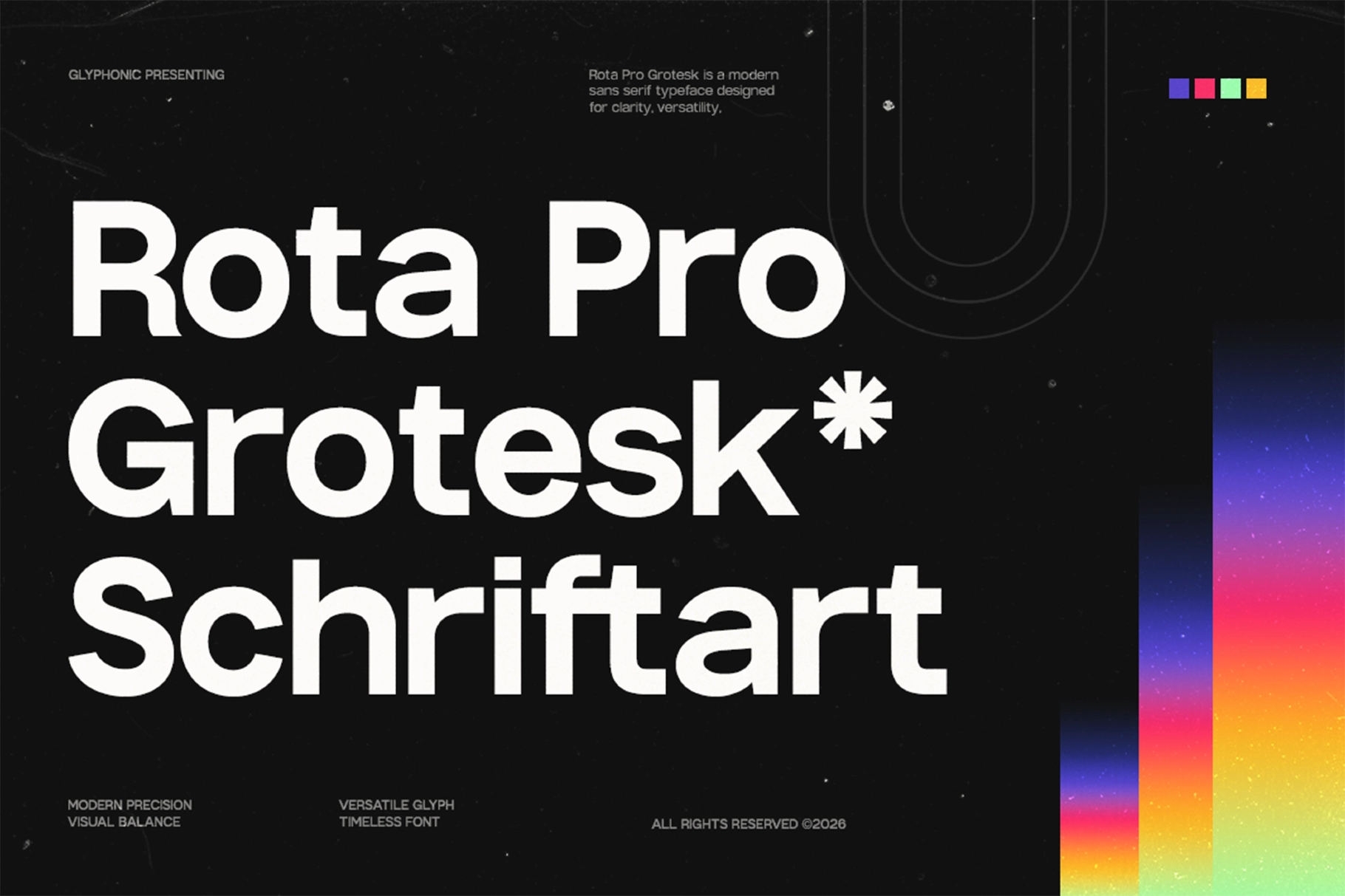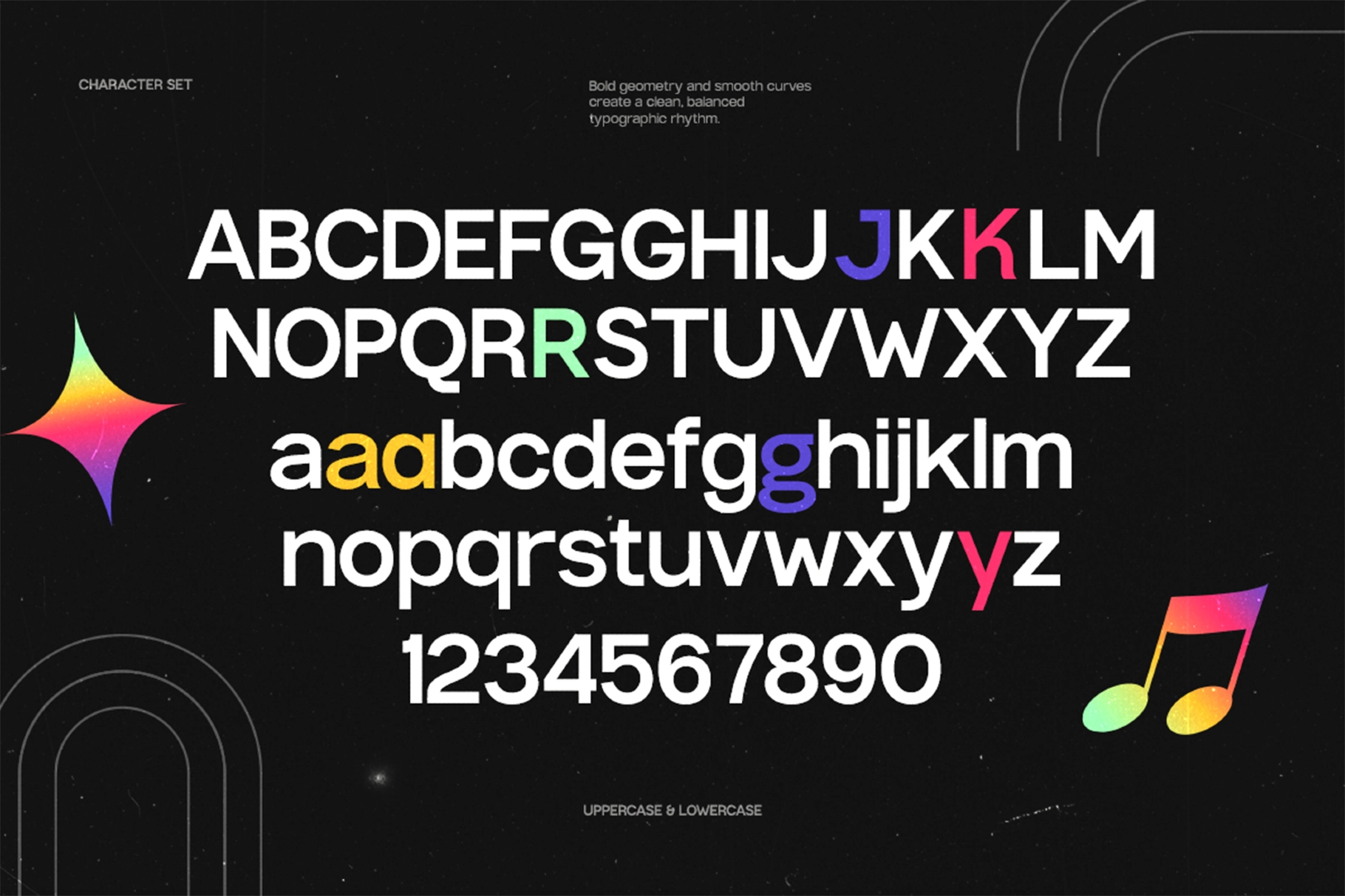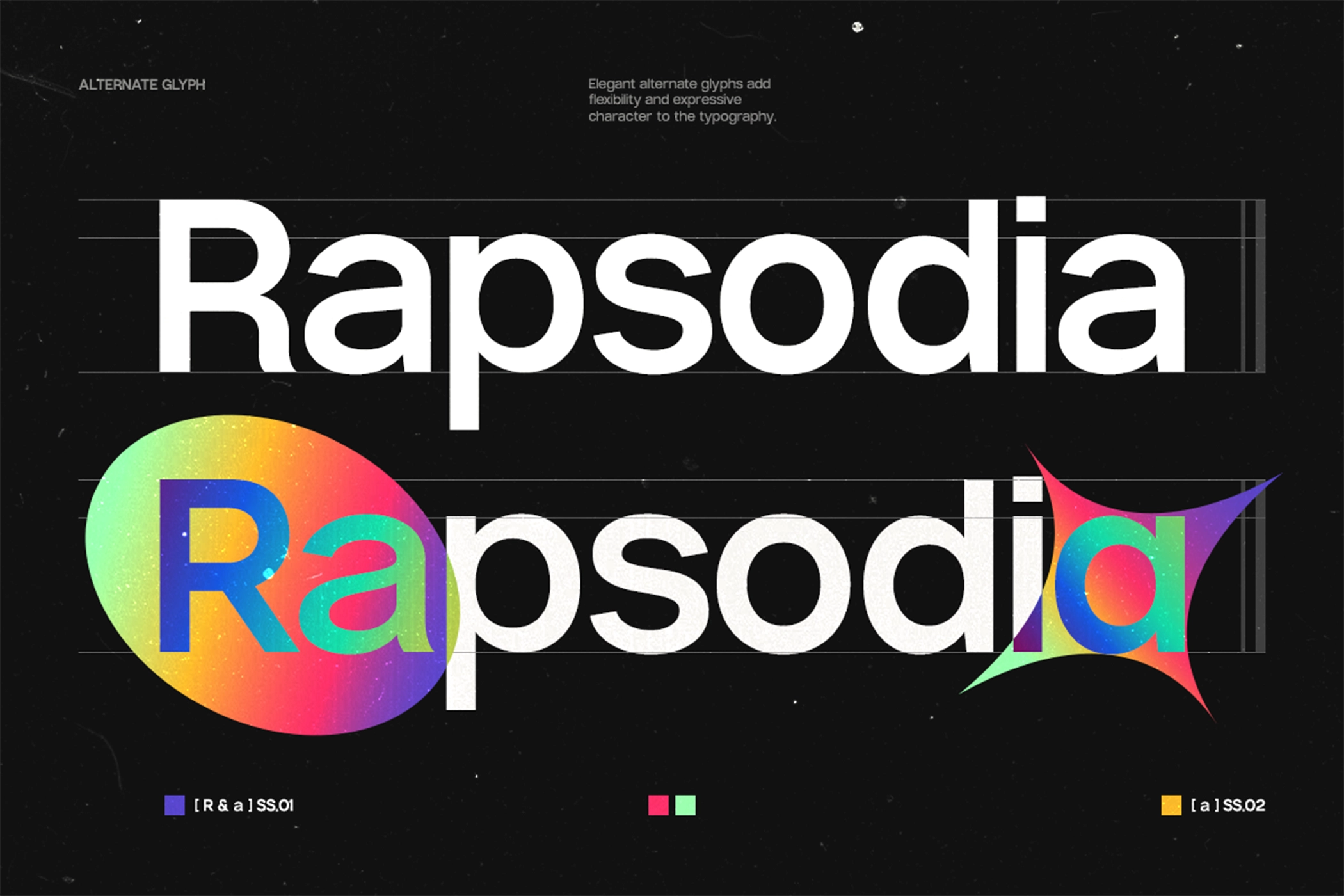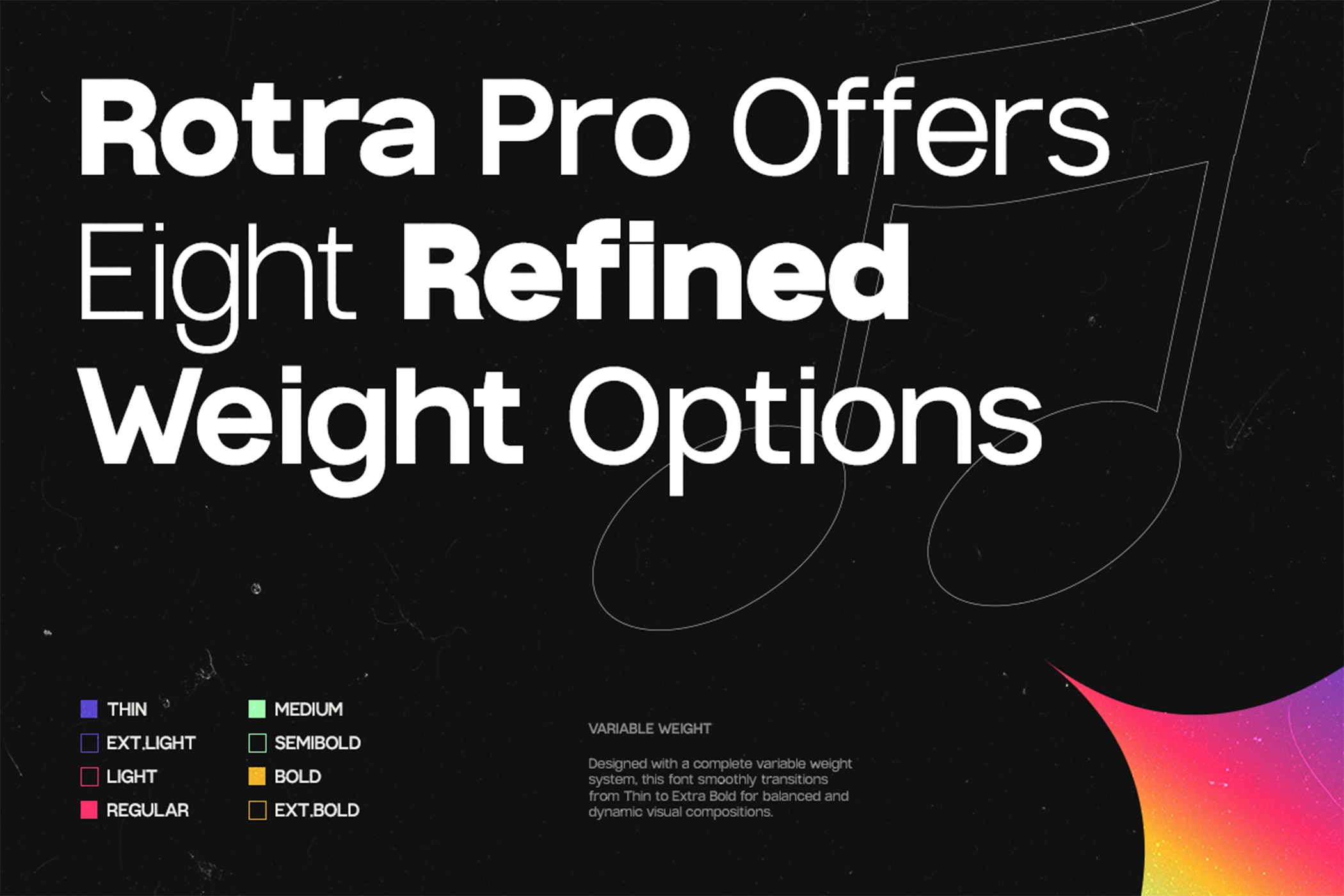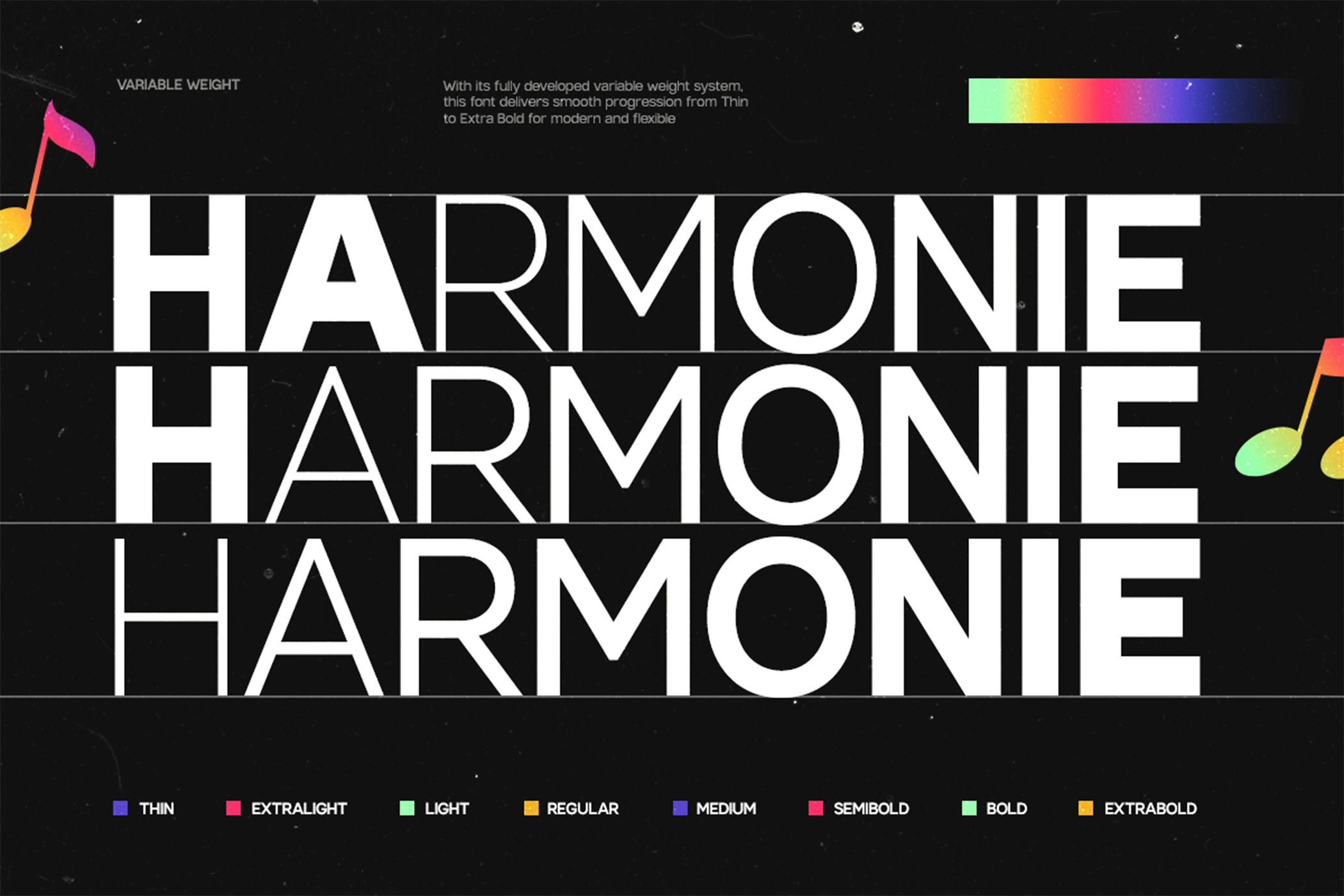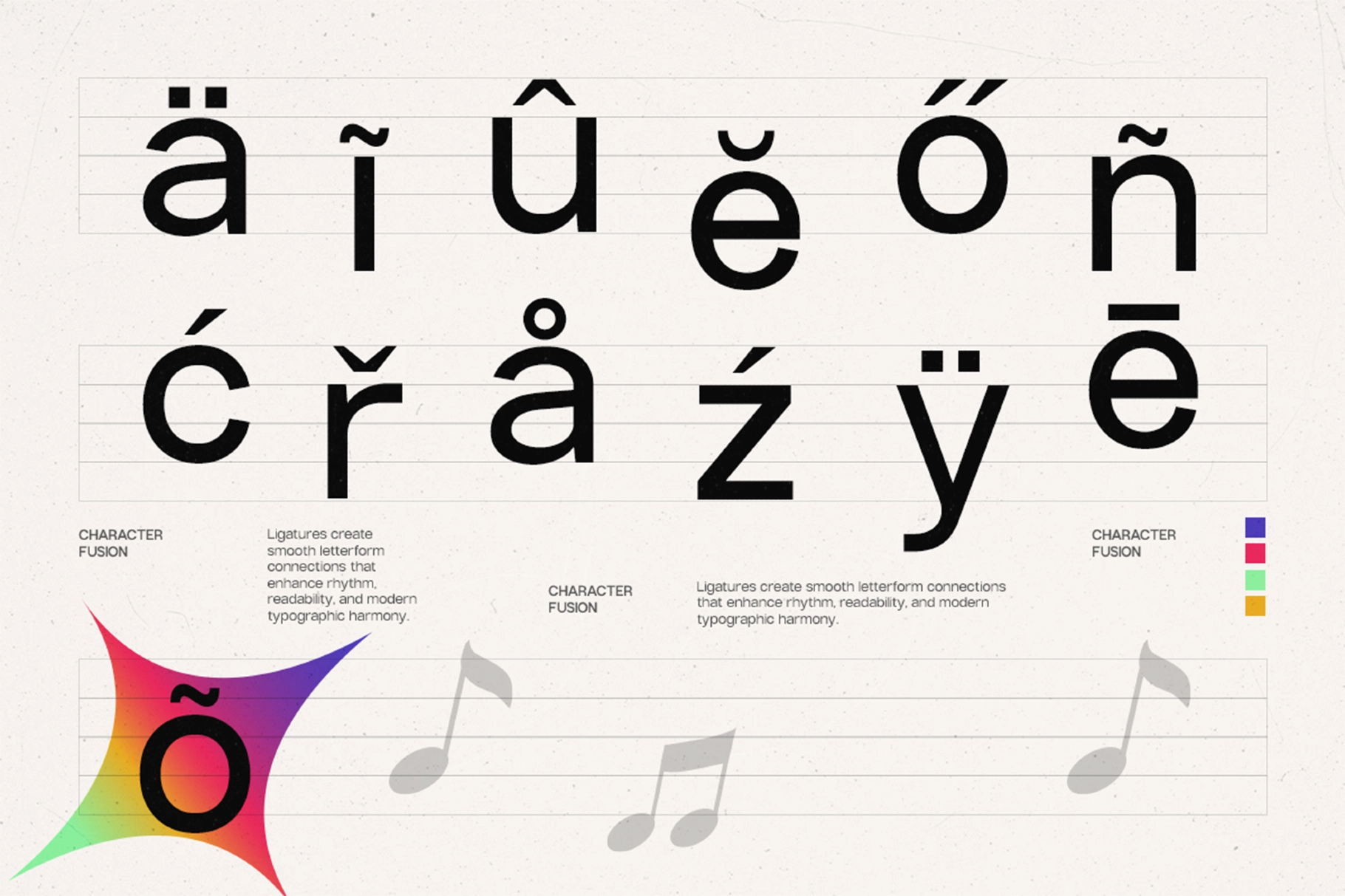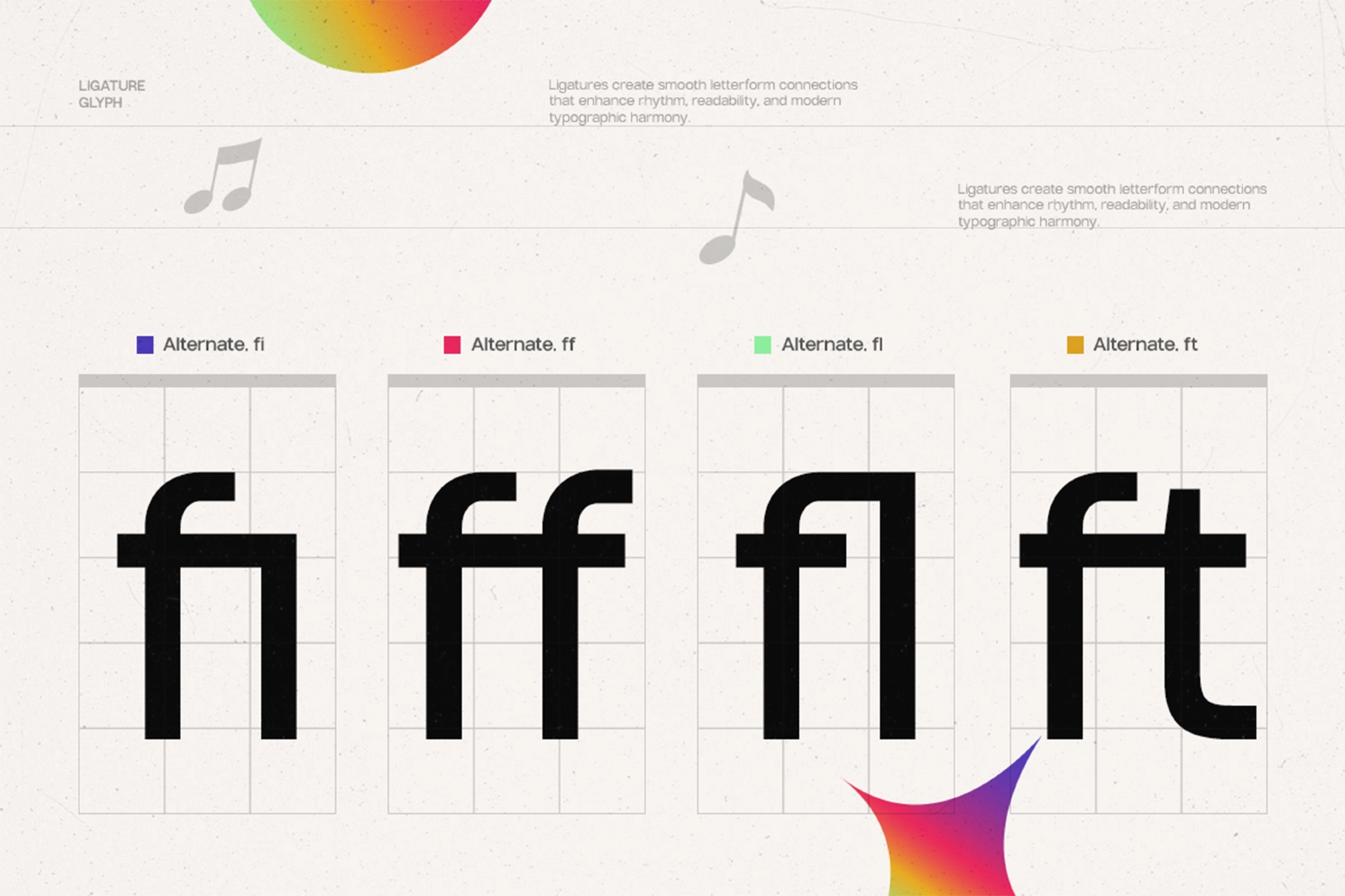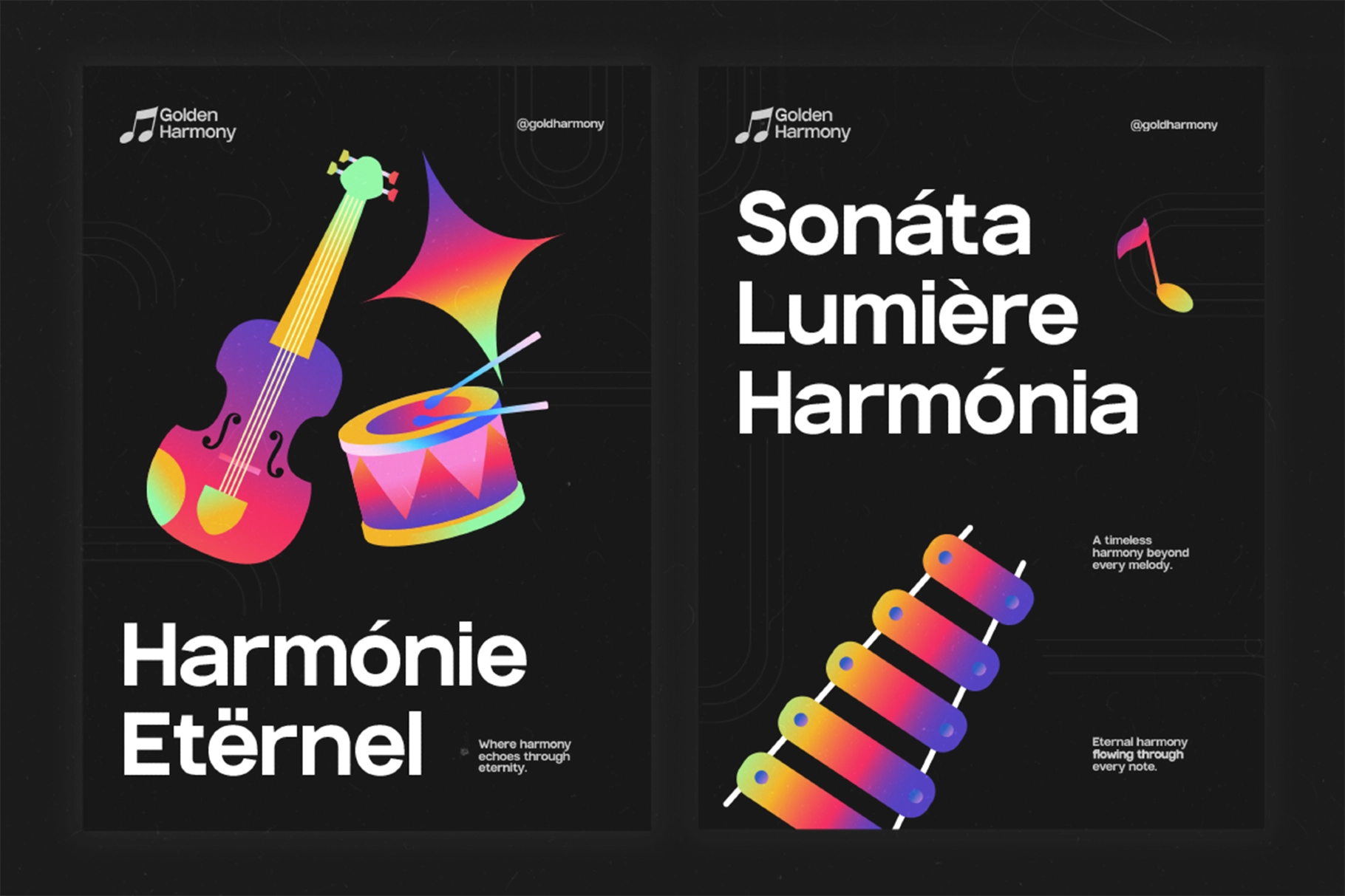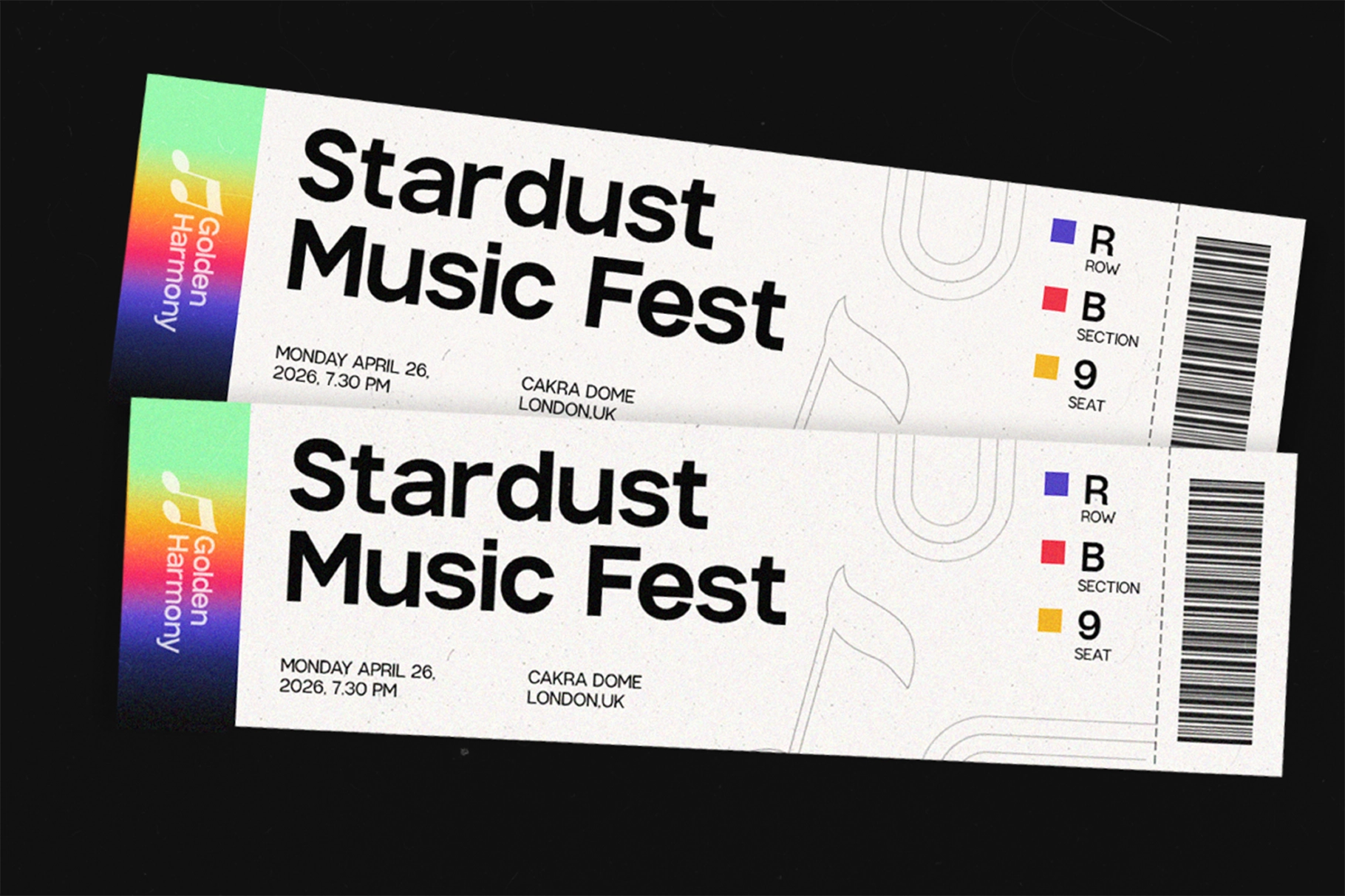
GC Rota Pro - Modern Grotesque Sans Font
GC Rota Pro is a variable grotesque sans with a neutral structure , tight geometric construction, and flat-cut terminals that give it the clean, no-frills authority of mid-century Swiss press type. The weight axis runs continuously, so a single file covers everything from light editorial text to heavy display without weight jumps or interpolation gaps.
Use it for brand identities, UI and app typography, editorial headlines, corporate communications, wayfinding systems, and packaging copy.
• Variable font with adjustable weight axis;
• Uppercase & Lowercase;
• Numerals, punctuation & symbols;
• Multilingual support (170+ languages);